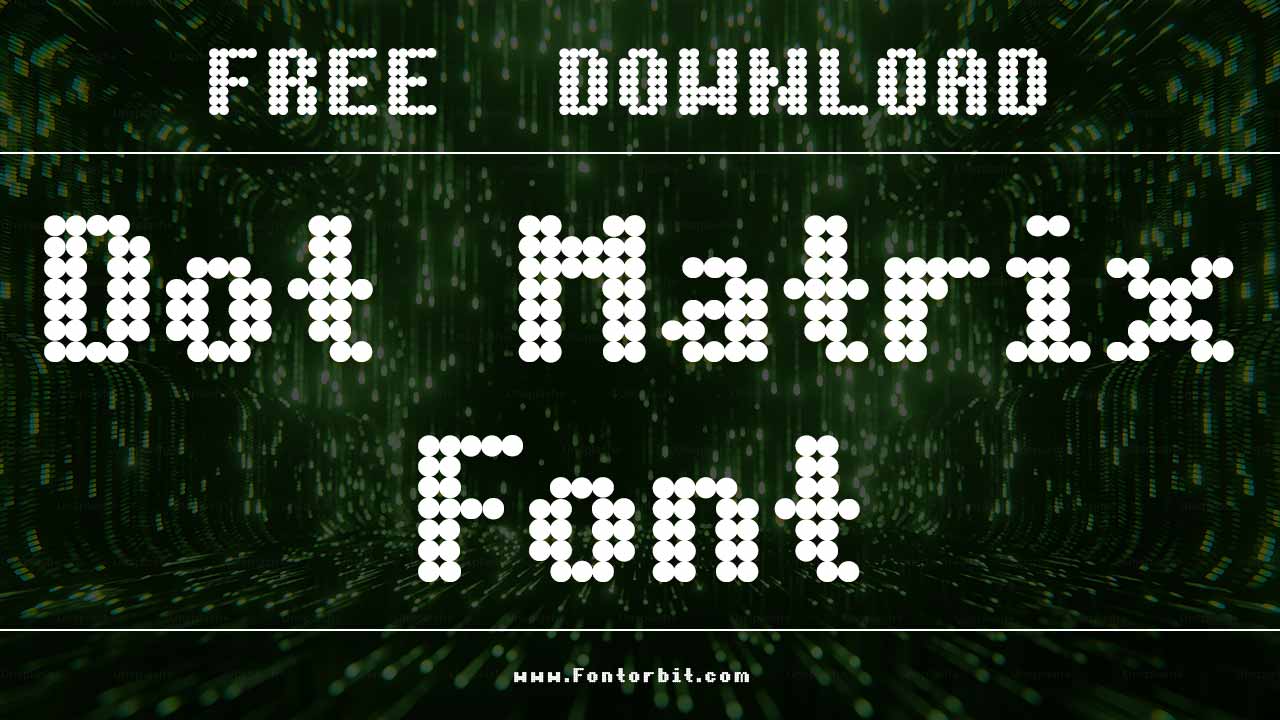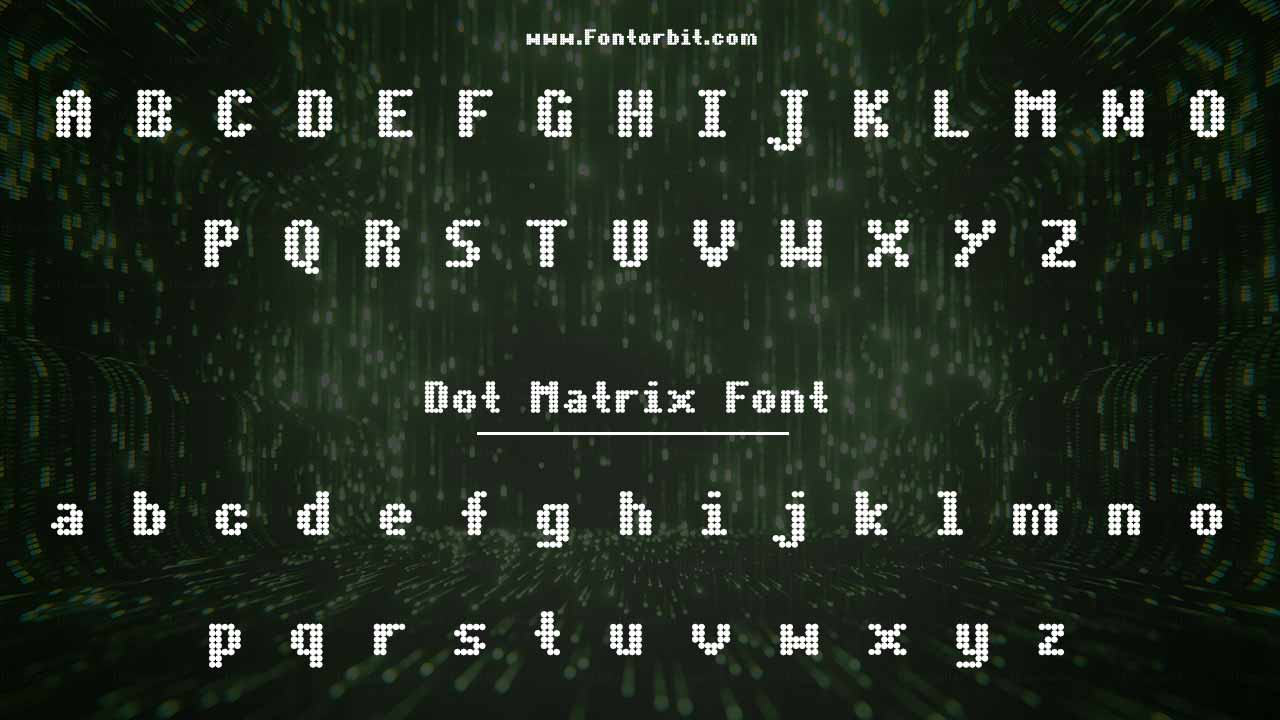
Dot matrix fonts, with their nostalgic pixelated style, are perfect for tech-inspired, retro, and futuristic designs. These fonts mimic the classic dot matrix printers and are highly effective in creating standout designs that evoke a vintage tech aesthetic. This guide covers how you can use dot matrix fonts in various design applications, from logos to digital screens and printed materials.
What Are Dot Matrix Font?
Dot matrix fonts are a display typeface that visually represents characters using small dots arranged in grids, similar to the output of a dot matrix printer. This pixelated design can bring a bold, technological flair to your projects. The popularity of dot matrix fonts comes froRetRetrom their association with vintage computers, printers, and early digital displays.
Why Use Dot Matrix Fonts?
Dot matrix fonts are ideal for projects with a tech or retro theme. They can evoke nostalgia while maintaining a modern edge. The font style is most commonly used in:
- Tech and digital design projects
- Retro-inspired art and branding
- Displays and signage in industrial settings
- UI/UX design with a vintage tech vibe
Types Of Dot Matrix Fonts And Their Uses
There are various dot matrix fonts available, each with distinct characteristics. To help you choose the right one, here’s a breakdown of some popular fonts and their best use cases:
How To Effectively Use Dot Matrix Fonts
1. Logo And Branding Design
Dot matrix fonts can give logos an industrial, tech-savvy look. Using a bold dot matrix style is perfect for companies with a focus on digital technology, manufacturing, or gaming. Pairing a dot matrix font with simpler sans-serif fonts like Roboto can create a balanced and modern logo design.
2. Website And App Design
For websites and apps with a digital or retro aesthetic, dot matrix fonts can be used in headings, buttons, or navigation bars. They bring a unique style to UI/UX and screen designs, while maintaining legibility. If you need a font for screen design, dot matrix fonts like Enhanced Dot Digital-7 work well for app interfaces and digital signage.
3. Printed Materials
Dot matrix fonts are also effective for printed materials like posters, flyers, and brochures. Their pixelated look gives them a bold presence when used in large sizes. For marketing campaigns or events that focus on technology, the dot matrix printer style adds a layer of authenticity to your designs.
4. Product Labels And Packaging
For packaging designs with a retro-tech aesthetic, dot matrix fonts can work well for labeling products like gadgets, tech accessories, or even clothing lines that emphasize a vintage style. Use a dot matrix font in combination with 3D fonts for a bold, striking label.
Dot Matrix Fonts In Digital Projects
Dot matrix fonts are often used in screen designs, particularly in applications that feature a retro or tech theme. Here’s a guide to how you can apply dot matrix fonts to different digital projects:
Websites
Dot matrix fonts can add a fun, quirky element to website designs. Use these fonts for digital ads, headlines, or as part of an interactive user experience.
Mobile Applications
For mobile applications with an industrial or futuristic theme, these fonts can be used for buttons, labels, and headings to create a sense of nostalgia while maintaining a modern user interface.
Social Media Graphics
You can apply dot matrix fonts in graphics for social media posts, particularly for tech-related content or promotions. This helps in creating eye-catching visuals that align with digital-era themes.
Pairing Dot Matrix Fonts With Other Styles
While dot matrix fonts have a distinct appearance, they may require complementary typefaces for full effect. Here are some suggestions on how to pair dot matrix fonts with other typography styles:
Suggested Font Pairings:
- Dot Matrix + Serif Fonts: A serif font balances the pixelated, harsh look of dot matrix text, offering a refined touch.
- Dot Matrix + Modern Sans-serif: For a clean, minimalistic look that contrasts with the retro, techy vibe of the dot matrix style.
- Dot Matrix + Handwriting Fonts: Combine handwriting fonts for a creative design that blends industrial tech with fluid, organic text.
7. Are Dot Matrix Fonts Available In Different File Formats For Use In Design Software?